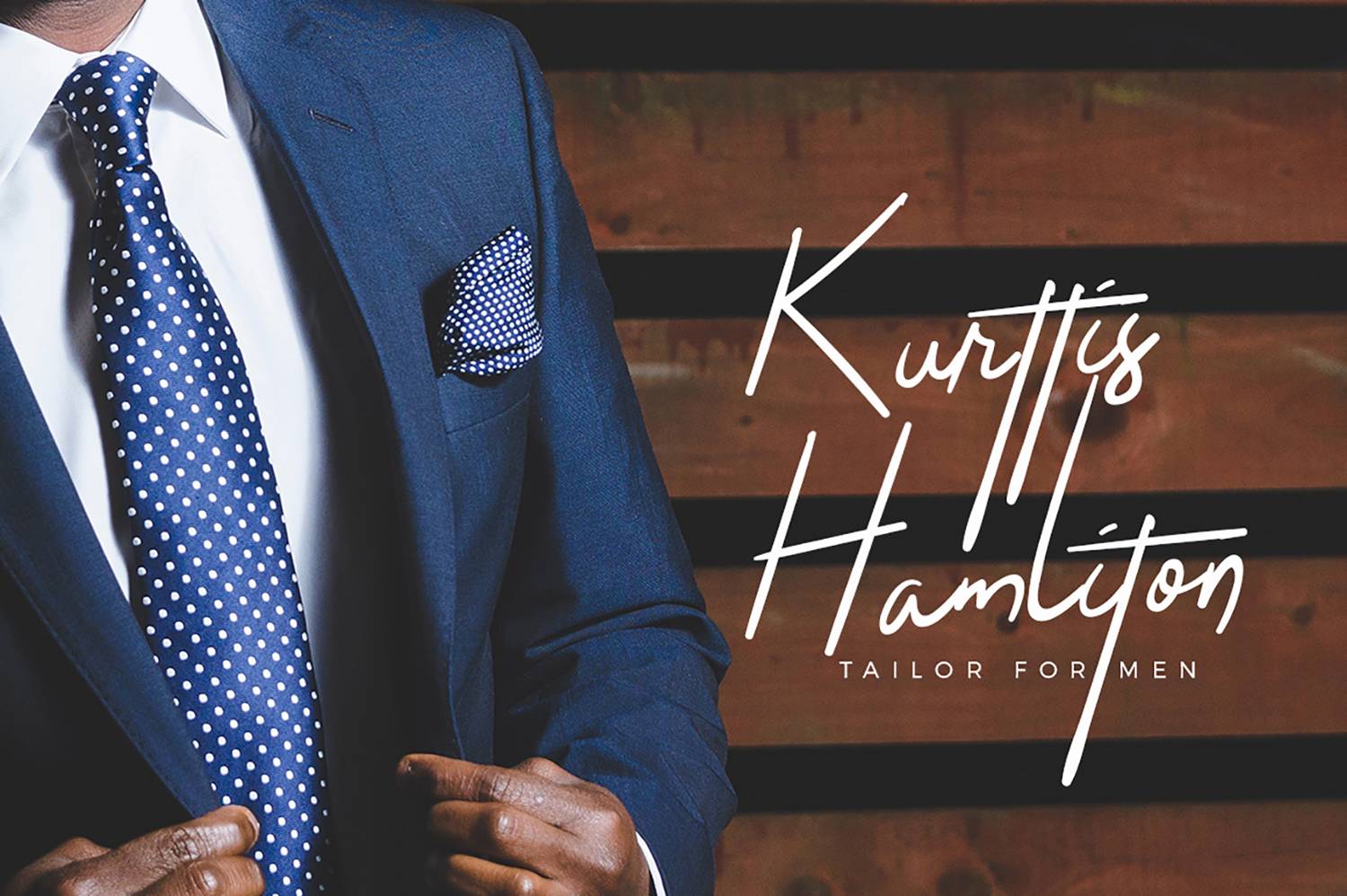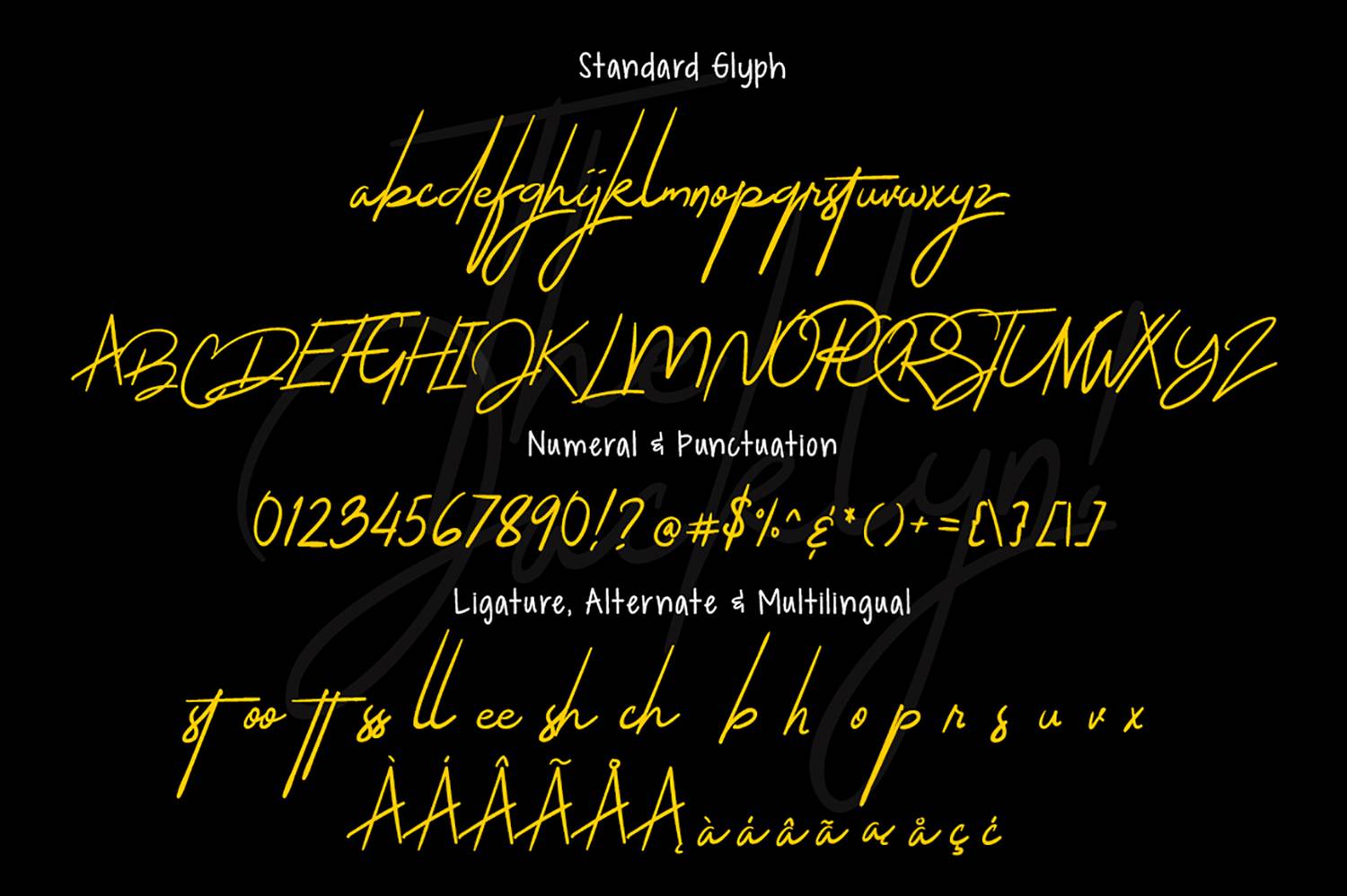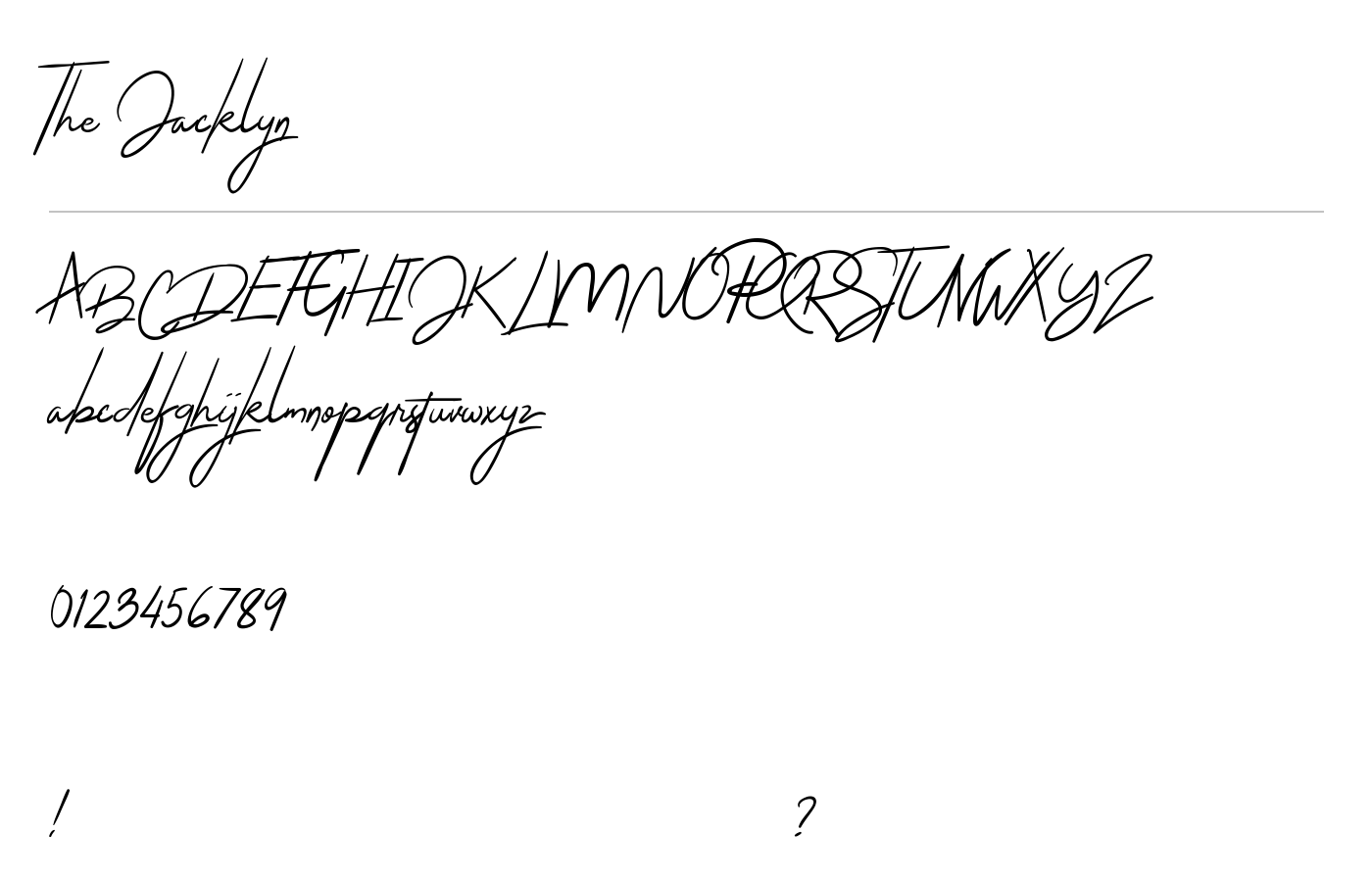
The Jacklyn Signature Font is an elegant, airy script typeface with a flowing, handwritten style that mimics natural signature writing. Its thin, delicate strokes and tall, slightly condensed letterforms create a modern yet personal feel, making it ideal for branding, invitations, and stylish editorial use where a sophisticated and intimate touch is desired. This font shines in projects that want to convey creativity, elegance, and individuality.
The Jacklyn Signature Font
About The Jacklyn Signature Font